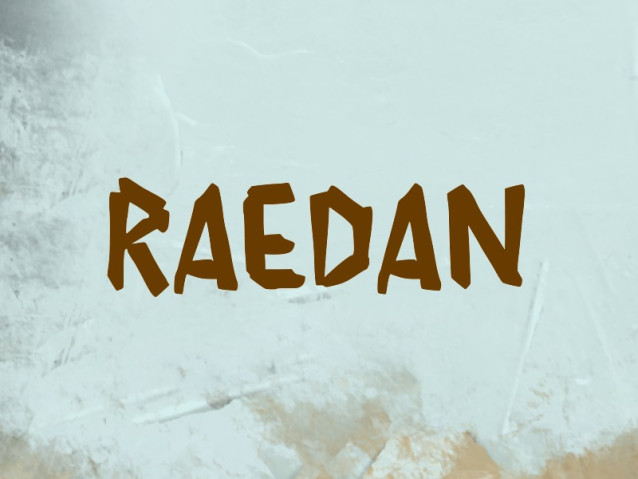
Raedan Font
Raedan Font is a handcrafted display font featuring sharp, angular strokes and a raw, organic texture. Its rugged aesthetic brings a powerful, ancient feel to any design, making it perfect for standout headlines and creative branding.